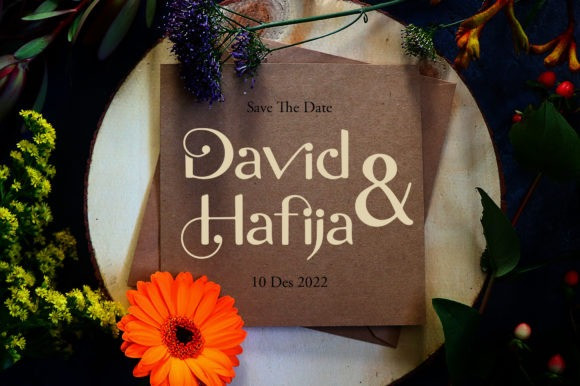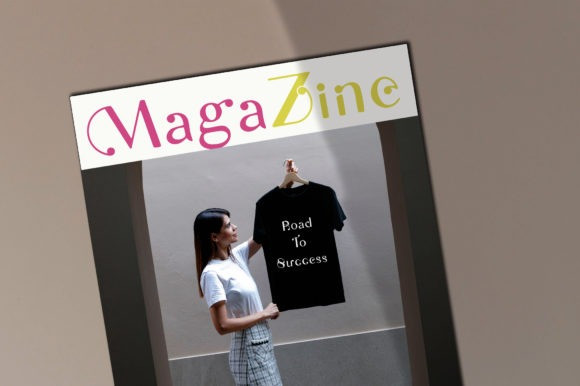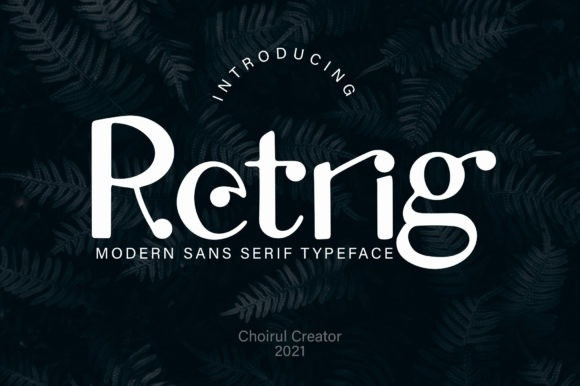
Retrig Font
Retrig Display Font is a modern, trendy and assertive display font. This font is PUA encoded which means you can access all of the amazing glyphs and ligatures with ease!
Add it confidently to your favorite creations and let yourself be amazed by the outcome generated.